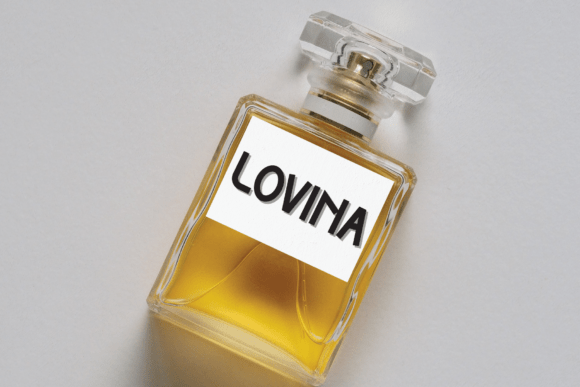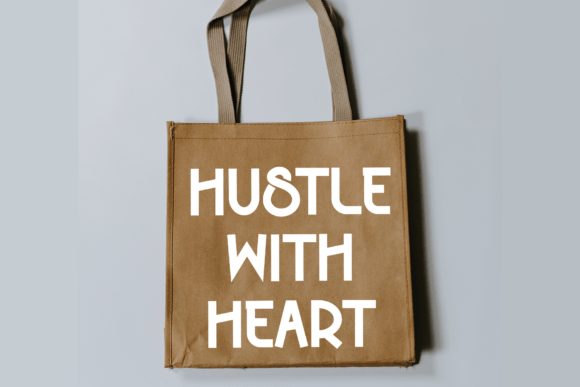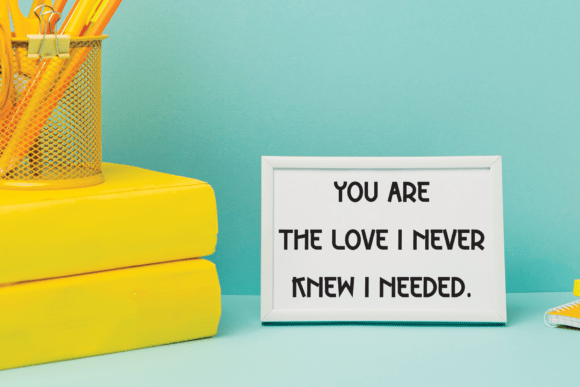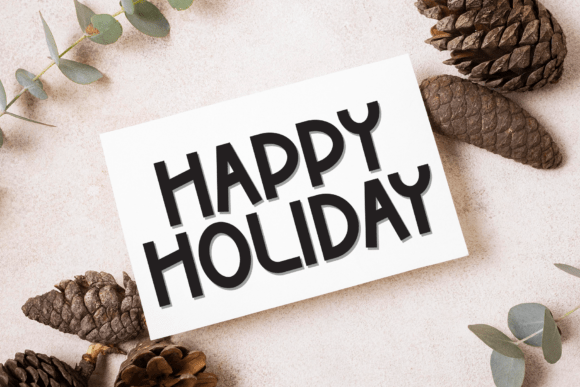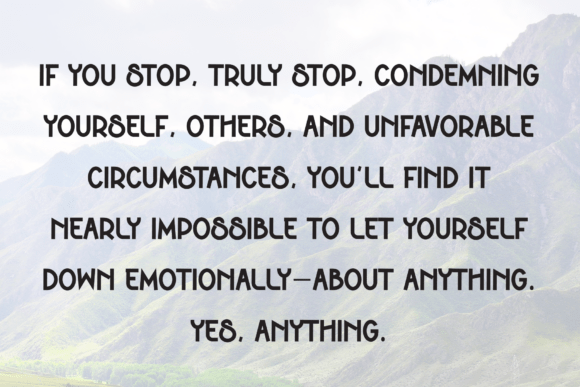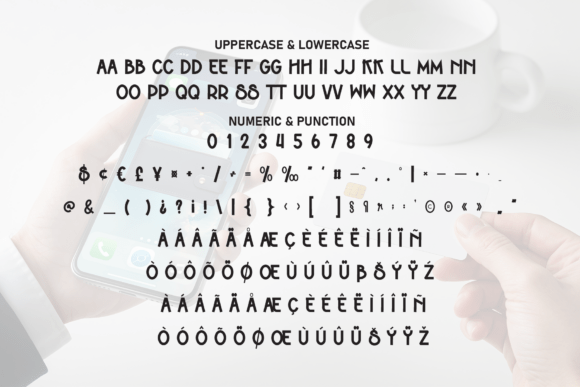
Introducing Card Digital Font: Elevate Your Designs with Extraordinary Style
Are you a designer, crafter, or DIY enthusiast looking for a unique and creative way to elevate your projects? Look no further than Card Digital Font, the latest and most stylish digital font designed to take your designs to the next level. Our font is perfect for a wide range of applications, from wall displays and wedding invitations to social media post logos, advertisements, product packaging, and more.
What Makes Card Digital Font Special?
Our Card Digital Font is crafted with love and attention to detail, ensuring that every letter, curve, and line is perfect for adding a touch of elegance and sophistication to your designs. With its tasteful handwriting style, this font is ideal for:
- Wall displays and signage
- Social media post logos and graphics
- Advertisements and marketing materials
- Product packaging and labeling
- Product designs and branding
- Photography and watermarks
- Stationery and journals
Why Choose Card Digital Font?
With Card Digital Font, you’ll enjoy a range of benefits that set it apart from other digital fonts on the market. Here are just a few reasons why designers and crafters love our font:
- Unique and Creative Style: Our font features a distinctive and stylish handwriting style that’s perfect for adding a personal touch to your designs.
- Flexible and Versatile: Our font is suitable for a wide range of applications, from digital designs to print materials.
Whether you’re a professional designer or a DIY enthusiast, Card Digital Font is the perfect choice for anyone looking to add a touch of elegance and sophistication to their projects. With its unique style, ease of use, and flexibility, our font is sure to become a favorite in your design toolkit.